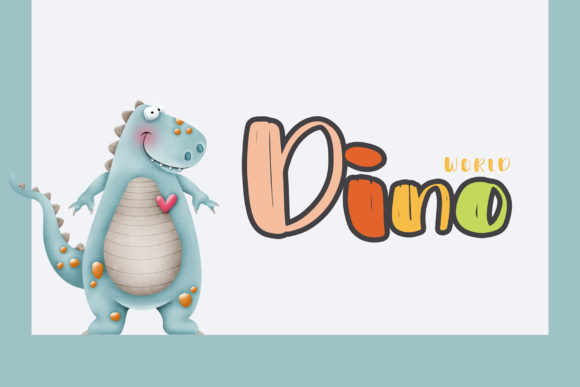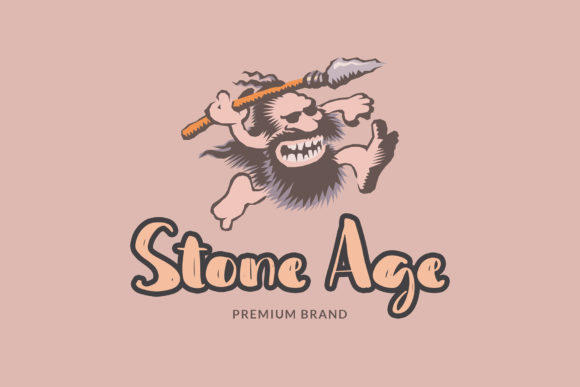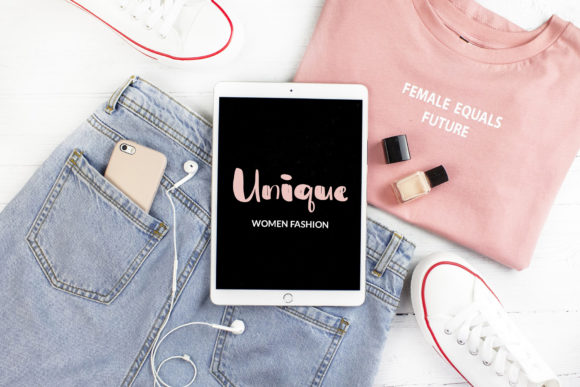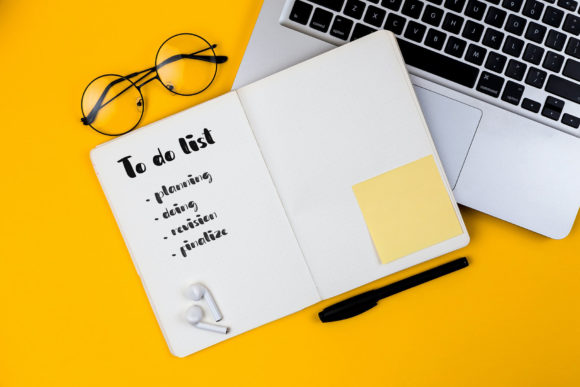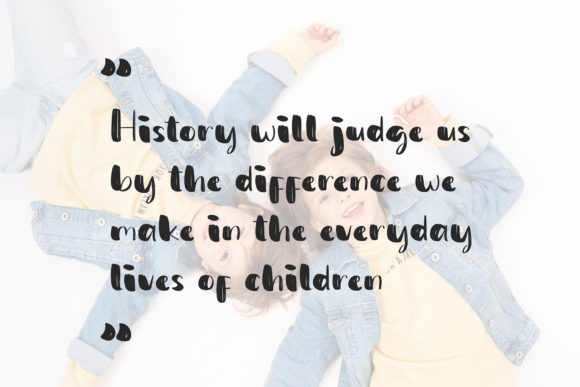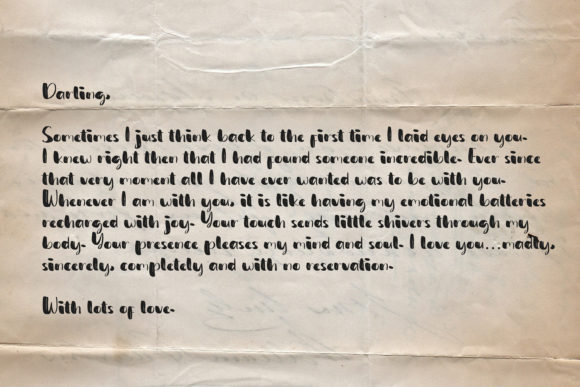
Introduction to Lompi Font
Have you ever been working on a creative project, pouring your heart and soul into it, only to realize that something is missing? That spark, that extra oomph, that makes your design truly come alive? For many designers, that missing piece is a font that perfectly captures the essence of their project.
Enter Lompi Font, a delightful display font that embodies playfulness and authenticity. Its chunky letters and vibrant colors are sure to add a touch of whimsy to any design. Whether you’re working on a children’s activity, a school project, or a fun campaign, Lompi Font is the perfect design resource to elevate your creative project.
Key Features of Lompi Font
- Unique, creative design ideal for various projects, including digital art and graphic design.
- High-quality font with a transparent background, allowing for seamless integration with any design.
- Perfect for designers and artists working on creative projects, offering a unique and stylish design element.
Honest Review: Lompi Font
I recently stumbled upon the Lompi Font, and I must say it’s a great addition to any design enthusiast’s collection. This font is perfect for those creative projects where you need a unique and eye-catching look.
Here are some of the key features that make the Lompi Font stand out:
- Unique and creative design
- High-quality and transparent background
- Available in various weights
⚠️ However, I do have a few limitations in mind. The font may not be suitable for all types of projects, especially those that require a more traditional or formal look. Additionally, some users may find the font a bit too bold or overpowering.
Overall, I’m impressed with the Lompi Font, and I would definitely recommend it to designers looking for a unique and creative design resource. With its high quality and versatility, it’s a great addition to any design collection.
Tips for Getting the Most Out of Lompi Font
For the best results, use the Lompi Font in conjunction with a high-quality image or design element. This will give your design a professional look and feel. Additionally, experiment with different font sizes and styles to add visual interest to your design.
The Lompi Font is commonly used in creative projects, such as logos, business cards, and social media graphics. It is also used in presentations, documents, and other design projects where a high-quality font is needed. The font’s transparent background makes it easy to use in designs with images or other design elements.